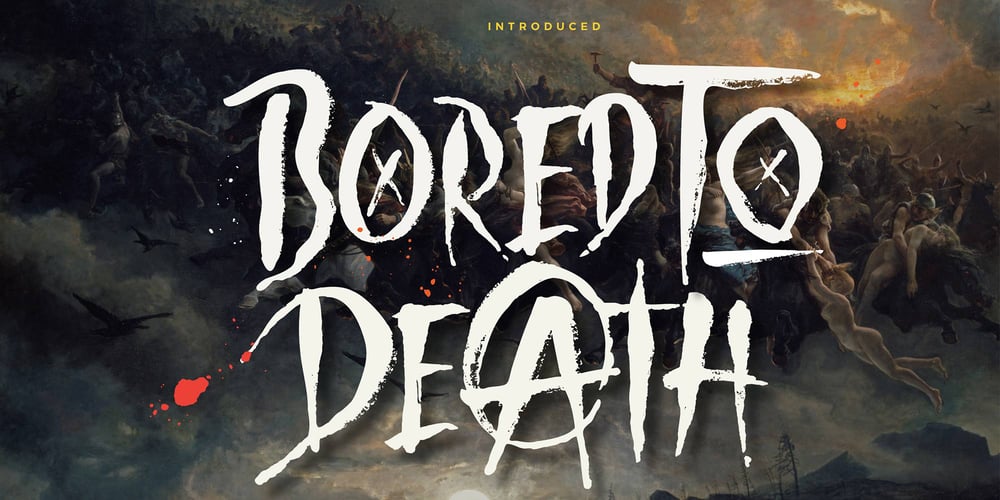
Fd Bored To Death
Fd Bored To Death font
Fd Bored To Death Font Family was designed by Ramandhani Nugraha and published by Fortunes Co. Fd Bored To Death contains 1 styles and family package options. This font is inspired by a horror film title or opening, taking inspiration from underground bands, made from watercolor brushes and so you get sharp textured results, with its defiant shape, rough edges and unadulterated imperfections. and give a spooky, firm, horror impression. There are several unique ligatures that can make sentences more unique. Regular Stylistic alternates SS01-SS03 Ligatures os, St, fl, ff, ffi, ffl, ae, si, ss, ha Multilanguge Support Latin Pro Uppercase & Lowercase Numerals & Punctuation 443 glyphs